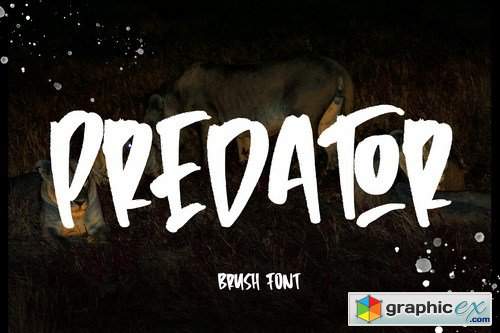
Predator - Brush Font
Predator is a relaxed and flowing Handwritten Font. Incredibly versatile, this font fits a wide pool of designs, elevating them to the highest levels. Add this font to your favorite creative ideas and notice how it makes them come alive!